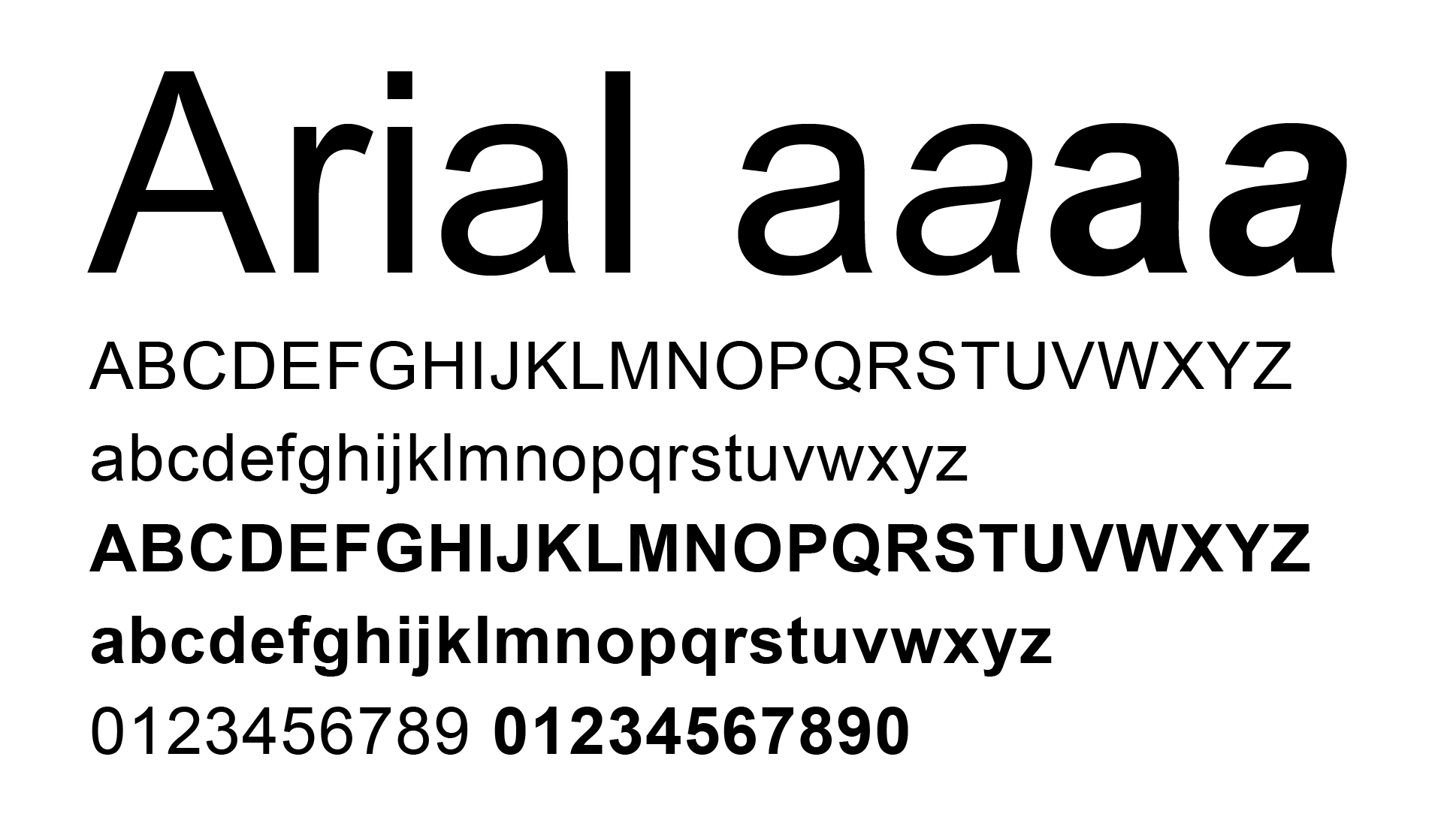
Arial narrow bold is free for personal use only. This most famous typeface is designed by two famous designers who work in monotype. Fonts from the household are packed with variations of microsoft home windows out of home windows three.
Arial font free download as we already discussed that fonts from the arial family are packaged with all microsoft windows from windows 3.1 onwards, some other microsoft software applications, apple mac. You can use the arial narrow bold to create interesting designs, covers, shop and store name and logos. Even arial font family includes more styles like rounded (light, regular, bold, extra bold);
If you are looking for a free font for your personal use, then arial. Arial font was metrics matched with helvetica font so that it could be used instead without purchasing helvetica’s license. It was designed by a team headed by robin nicholas and patricia saunders for monotype typography in 1982.
About the font arial greek bold. Arial font is similar to grota rounded a simulated version of that of helvetica font. Please, talk with the author for commercial use or for any support.